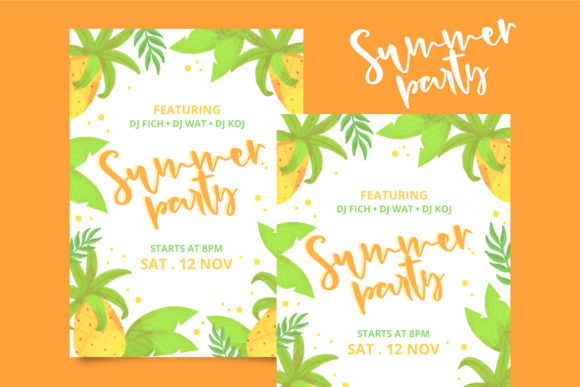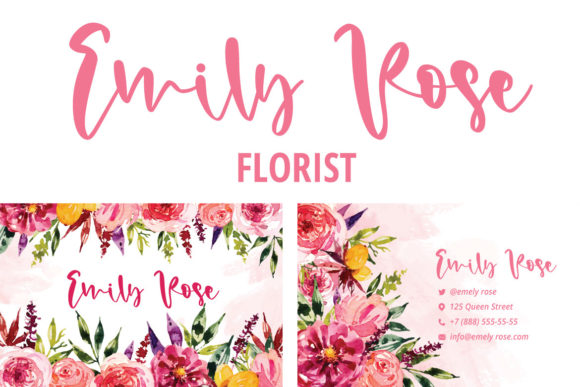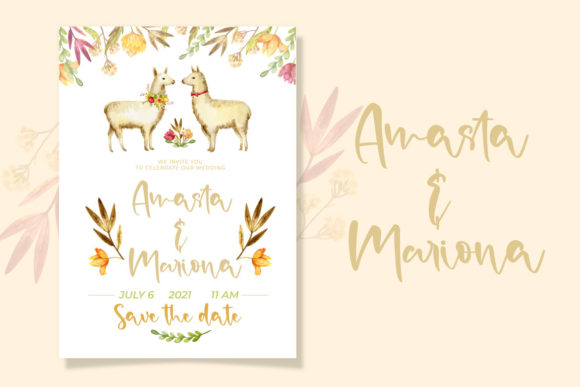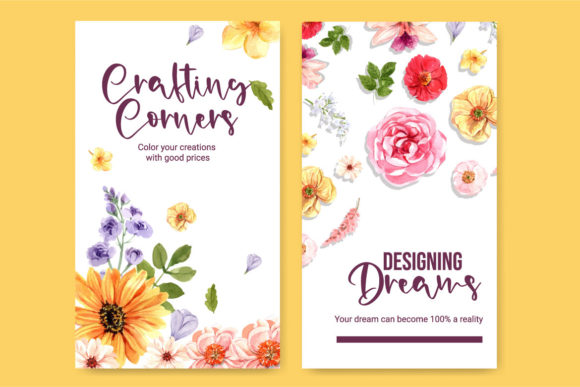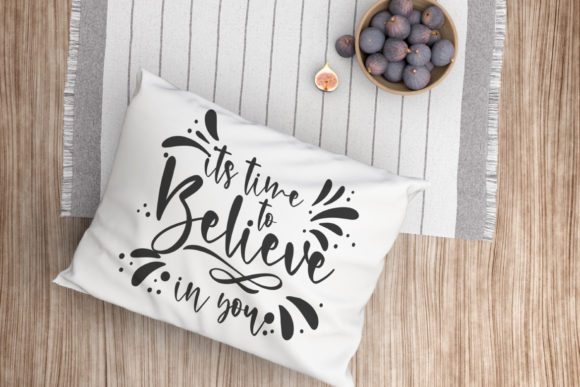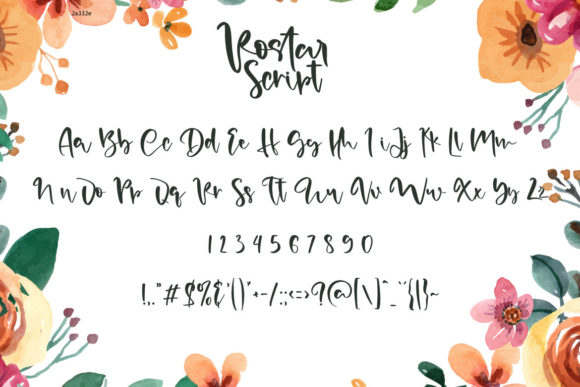
Introduction to Rostar Font
Have you ever been working on a creative project, and suddenly, you stumble upon the perfect font that elevates your design to the next level? For many designers, this moment is a game-changer. It’s the moment when all the elements come together, and your design starts to shine. This is exactly what happened when we discovered the Rostar Font – a delicate, elegant, and flowing handwritten font that has taken the design world by storm.
With its beautiful and well-balanced characters, the Rostar Font is a design resource that can be used in a wide variety of projects, from elegant invitations to creative graphics. Its versatility makes it a valuable asset for designers, who can have fun exploring its endless variations and create high-quality designs with ease. Whether you’re working on a design project with a transparent background or need a font that stands out from the crowd, the Rostar Font is an excellent choice.
- Perfect for use in creative projects that require a modern and stylish font, such as logos, branding materials, and advertising campaigns.
Honest Review: Rostar Font
The Rostar Font is a great addition to any designer’s toolkit. I’ve been using it for a few creative projects and I have to say, I’m impressed. The font is a high quality design resource that can add a unique touch to any design.
Here are some of the key features that make the Rostar Font stand out:
- Great for creative projects
However, there are a few limitations to consider. The font may not be suitable for very small text sizes, and it can be a bit tricky to use in certain design software.
Overall, I’m really impressed with the Rostar Font. It’s a great addition to any designer’s toolkit and can add a unique touch to any design. With its high quality design, transparent background option, and free download availability, it’s a must-have for any designer working on a creative project.
How to Use Rostar Font
The Rostar Font is a high-quality design resource that can add a touch of elegance to your creative project. With its unique and sophisticated style, this font is perfect for various design needs.
Tips for Getting the Most Out of Rostar Font
To get the most out of the Rostar Font, use it on a transparent background to create a stunning visual effect. You can also pair it with other design elements to create a cohesive and professional look.
The Rostar Font is perfect for a variety of design needs, including:
- Magazine and newspaper headlines
- Website and app design